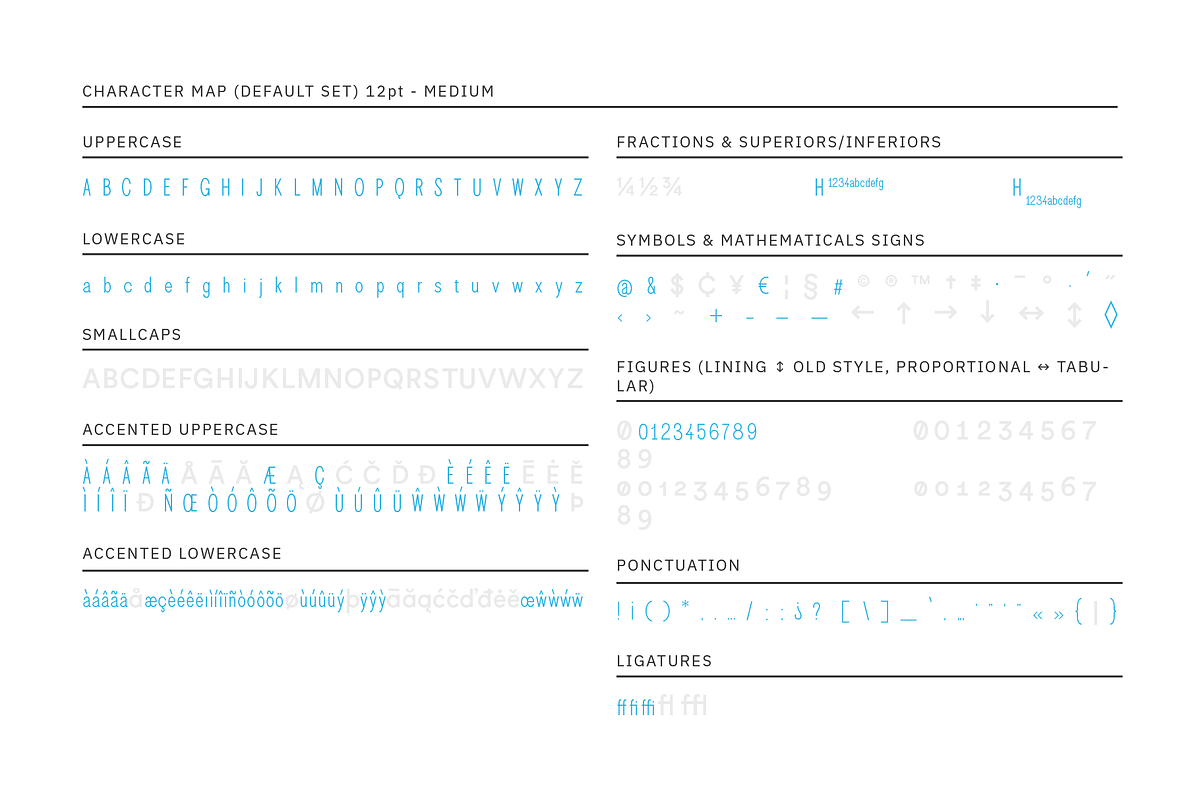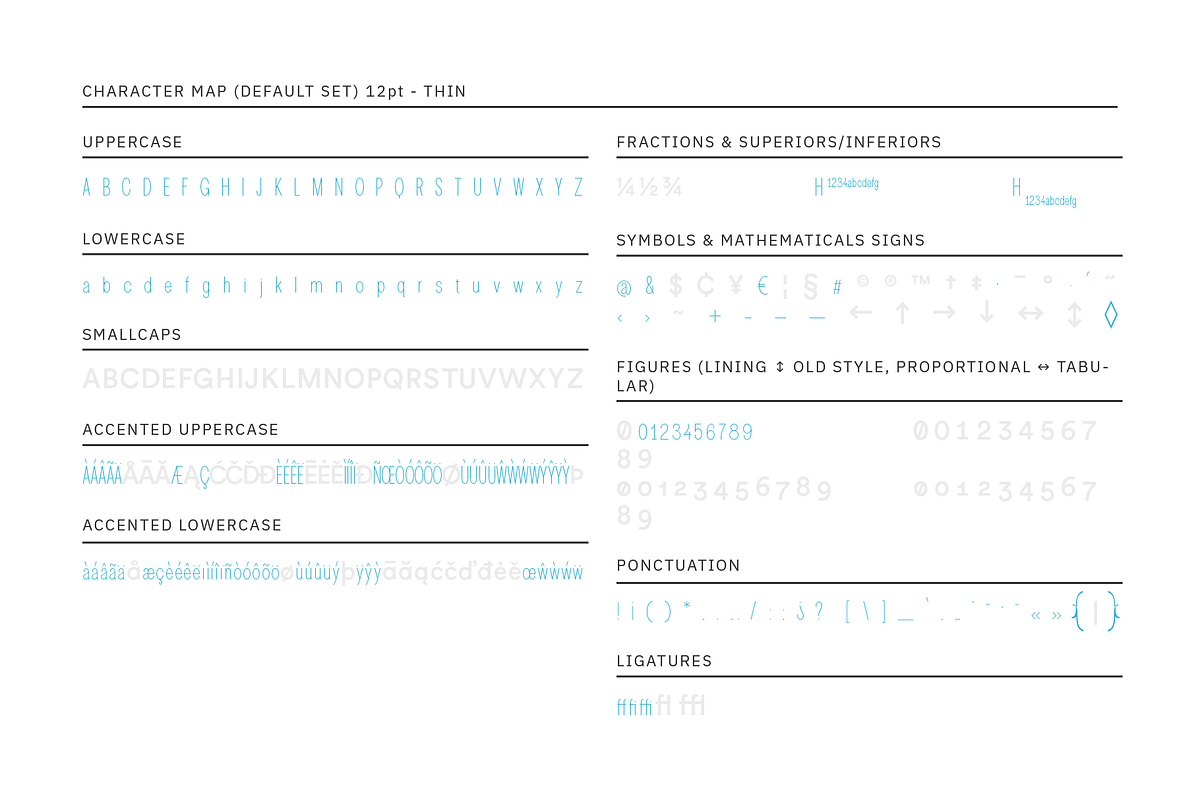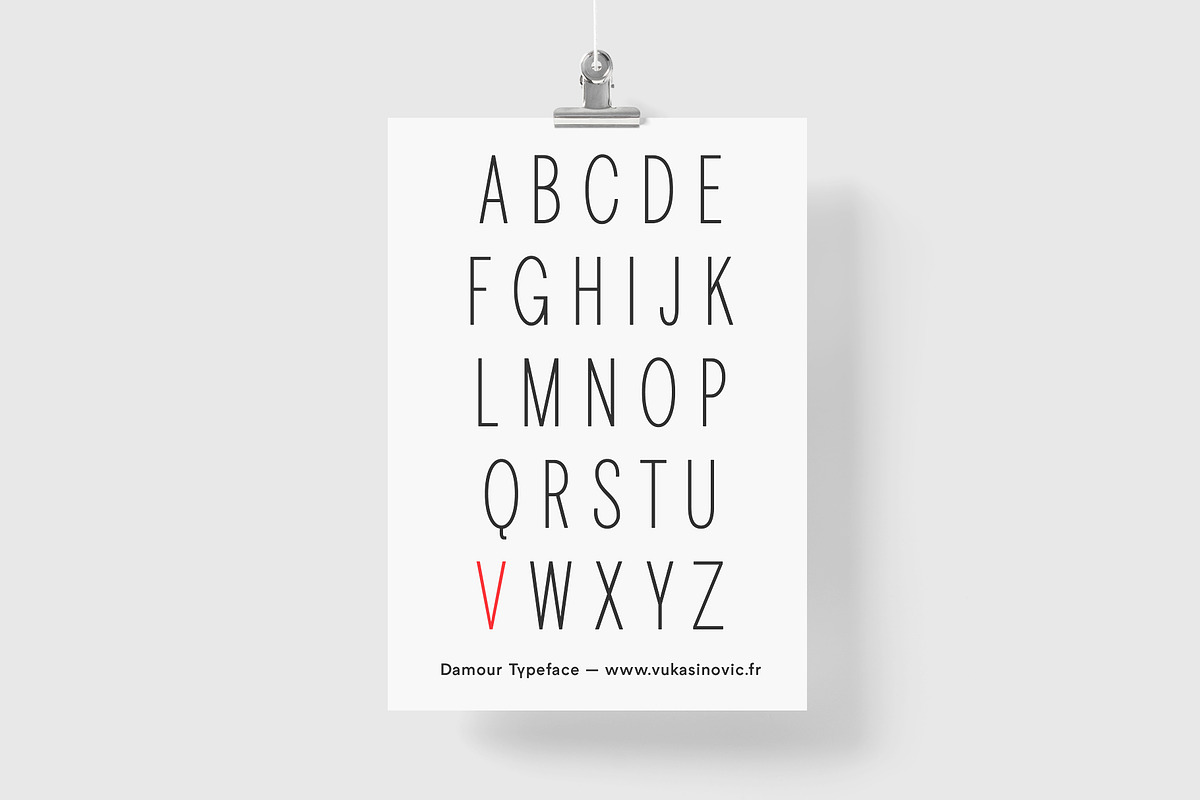
Damour Family
DAMOUR Family
DAMOUR is a family of 3 styles commissioned by the Communauté de Communes du Val d'Amour. Sans serif and condensed, human despite everything, it will find its place in your most exciting projects!